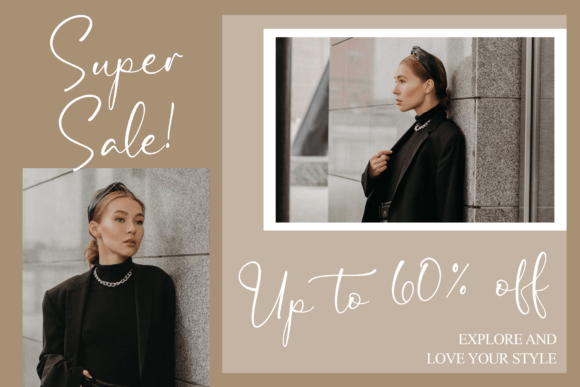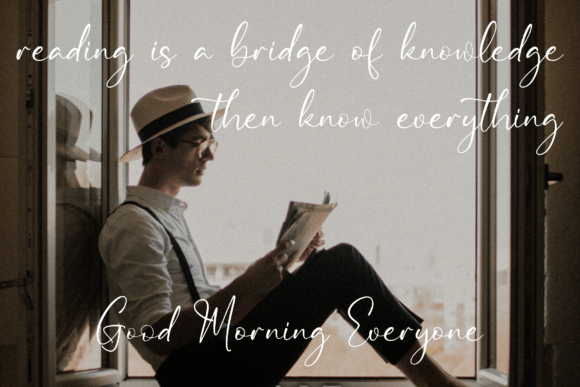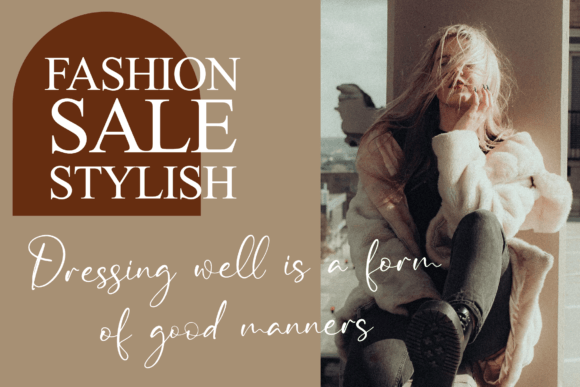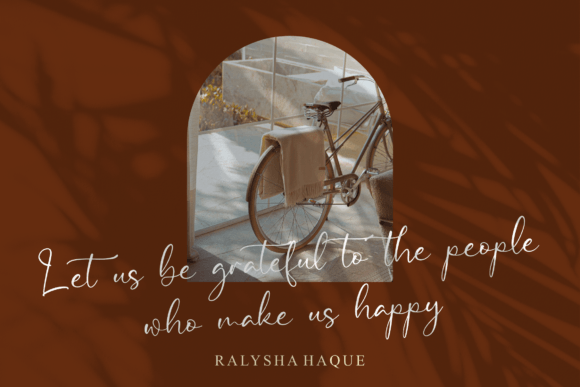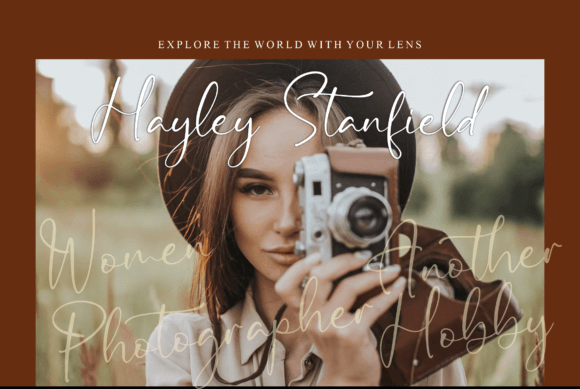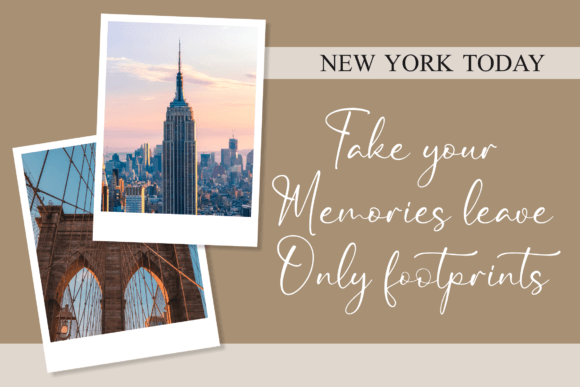
Introduction to Berthalines Hasttelia Font
Berthalines Hasttelia – Beautiful Script Font suitable for any projects such as logos, branding projects, homeware designs, product packaging, mugs, quotes, posters, shopping bags, t-shirts, book covers, name cards, invitation cards, greeting cards, labels, photography, watermark, special events, and all your other lovely projects that need a beautiful script taste.
Key Features of Berthalines Hasttelia Font
Why Choose Berthalines Hasttelia Font?
Berthalines Hasttelia Font offers exceptional quality and versatility, making it a valuable addition to your design toolkit. Whether you’re creating for personal projects or commercial use, Berthalines Hasttelia Font delivers professional results.